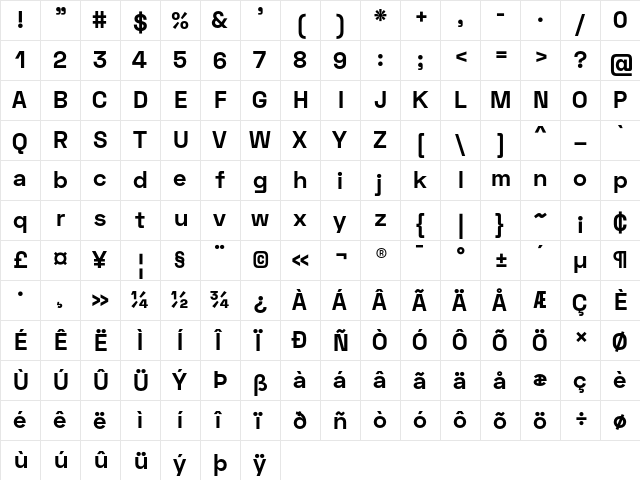
Space Text Bold
| Foundry | Florian Karsten |
| Designer | Florian Karsten (Space Text), Colophon Foundry (Space Mono) |
Design Context for Space Text Typeface
Space Text offers clean, dependable letterforms without strong stylistic allegiance, making it a practical choice for designers who need flexibility. The heavy weight commands attention and anchors typographic hierarchies.